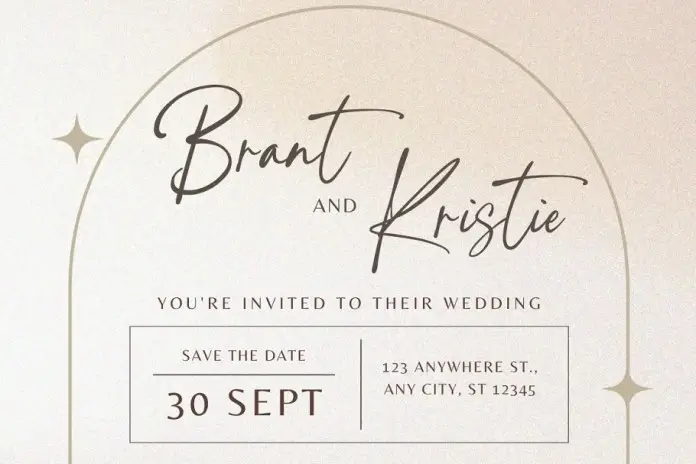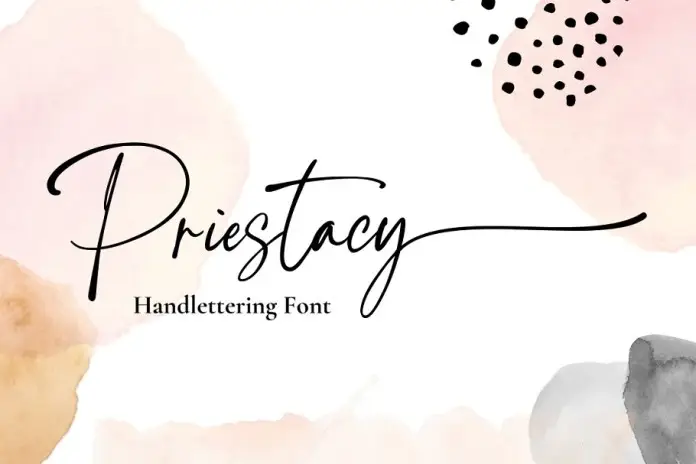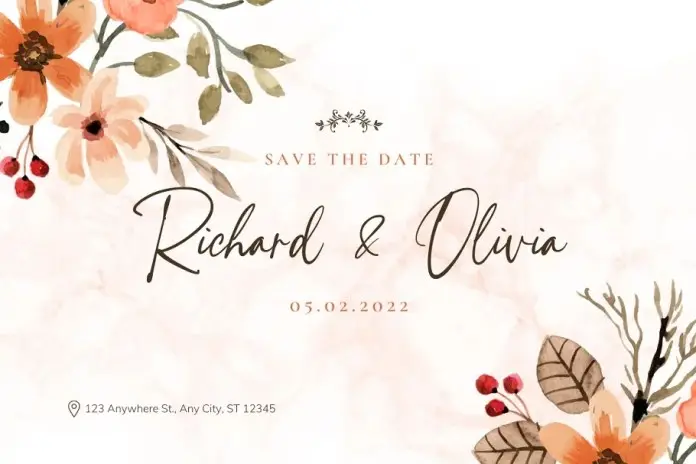
Priestacy Handwritten Font
The Priestacy Handwritten Font is a beautifully crafted typeface that captures the essence of personal touch and creativity. With its elegant strokes and fluid design, this font is perfect for a variety of applications, from branding to web design.
• Stylish handwritten design
• Easy to read at various sizes
• Ideal for logos, invitations, and greeting cards
• Great for social media graphics and website headers
• Use in print materials for a personal touch